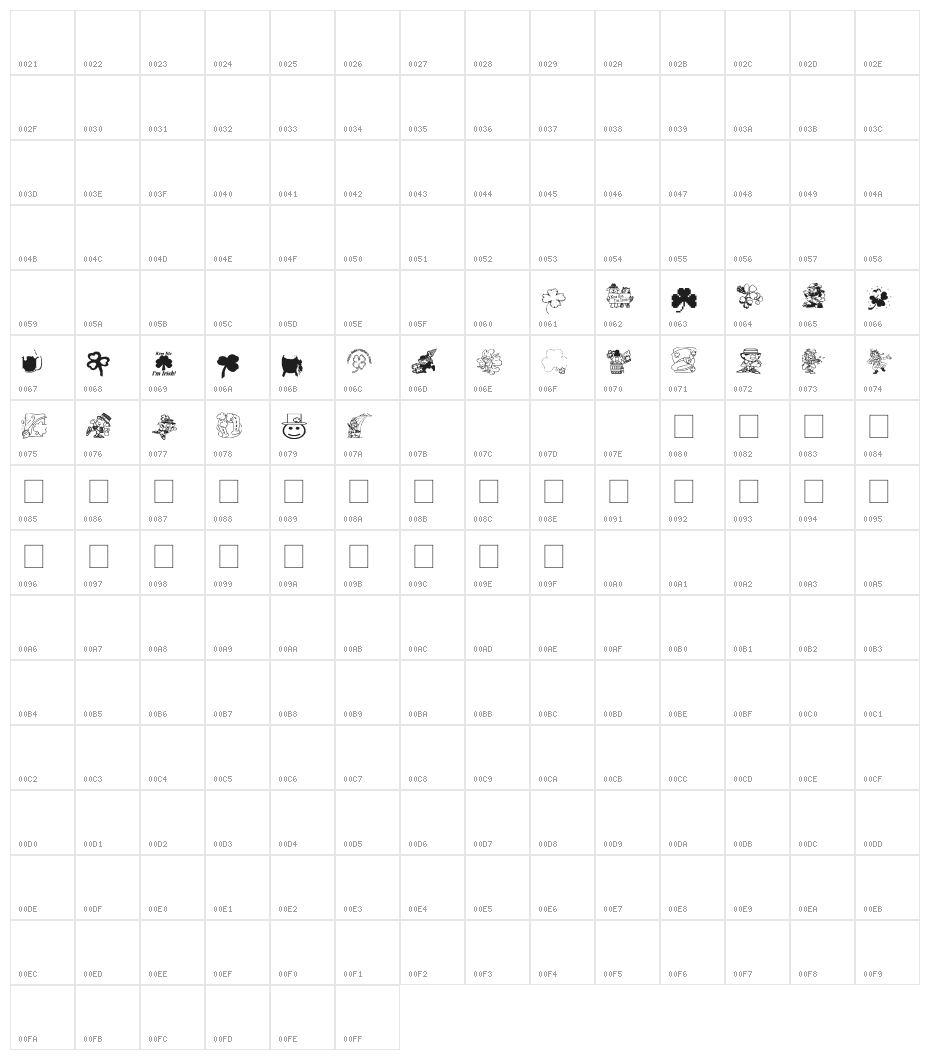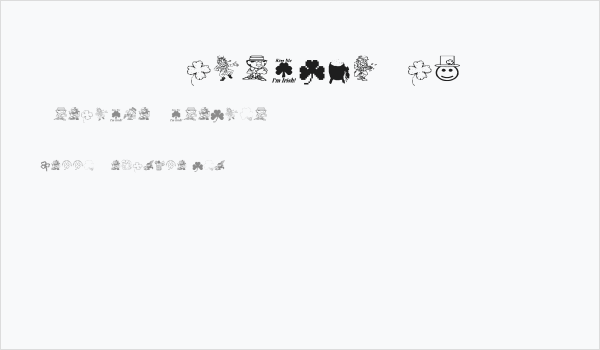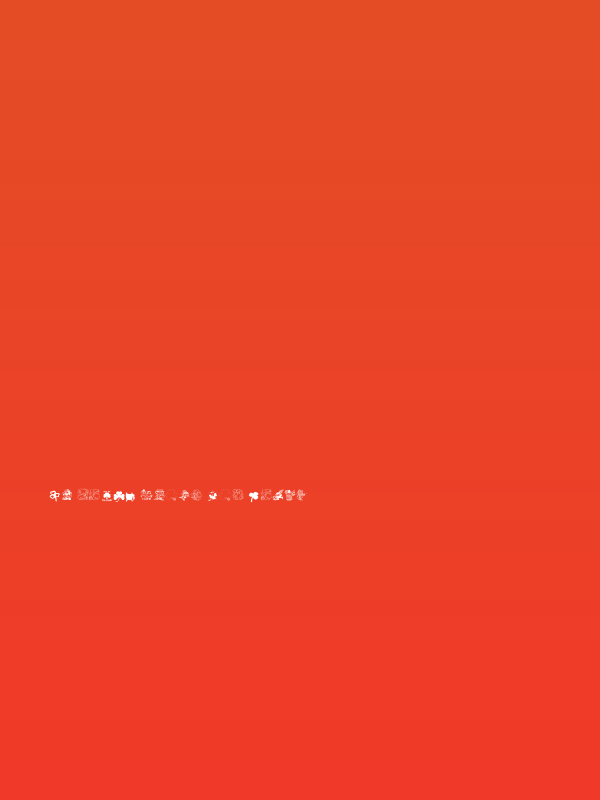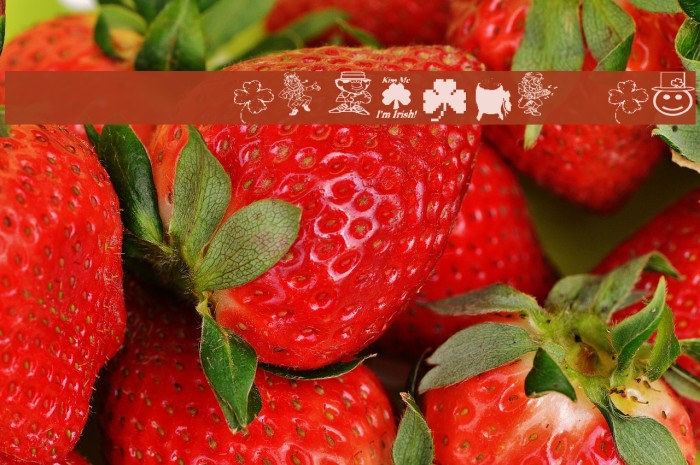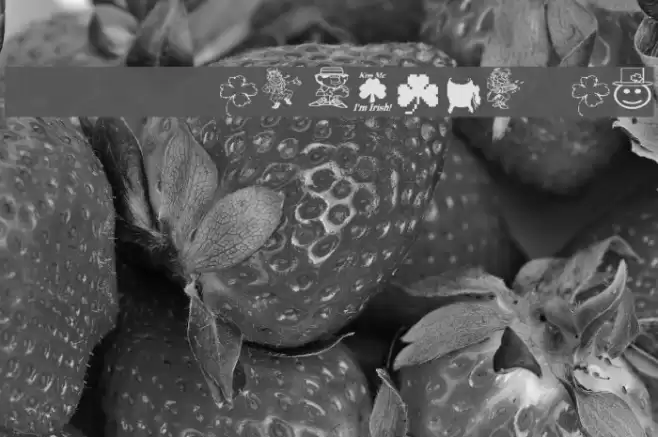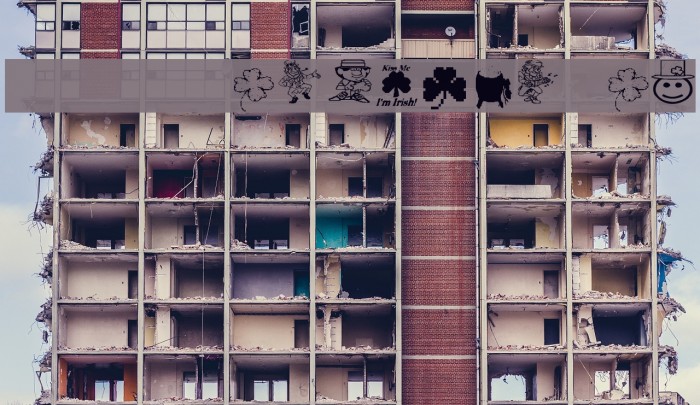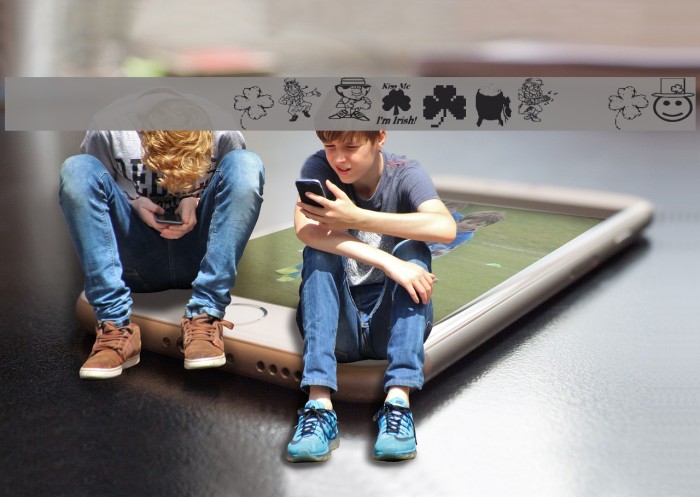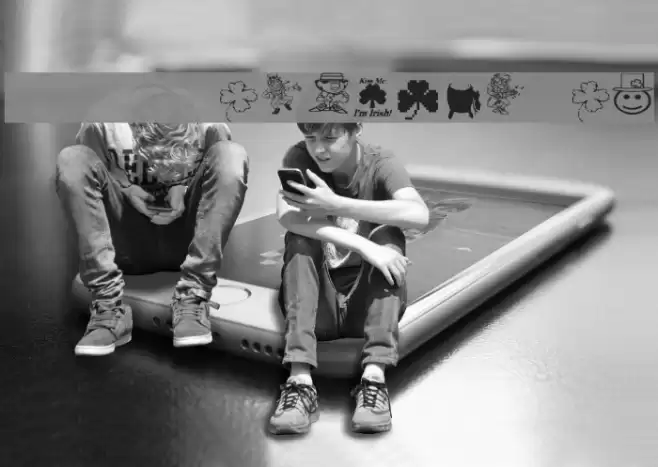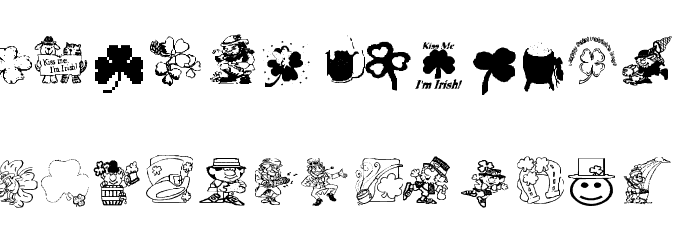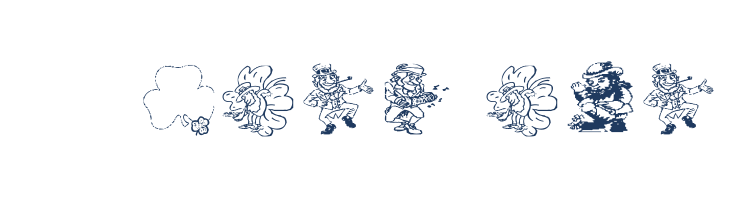
AEZSTPatricksDay Font
AEZSTPatricksDay Description
A decorative dingbat font featuring various St. Patrick's Day-themed illustrations, including shamrocks, leprechauns, pots of gold, beer mugs, and festive text elements. Each character is represented by a unique, playful graphic related to Irish culture and the holiday.
| Overall Style | Decorative, Festive, Playful |
| Use Case | Decorative elements, Themed graphics, Event materials |
| Proposed Projects | Holiday event flyers, party invitations, themed crafts, classroom decorations, festive banners. |